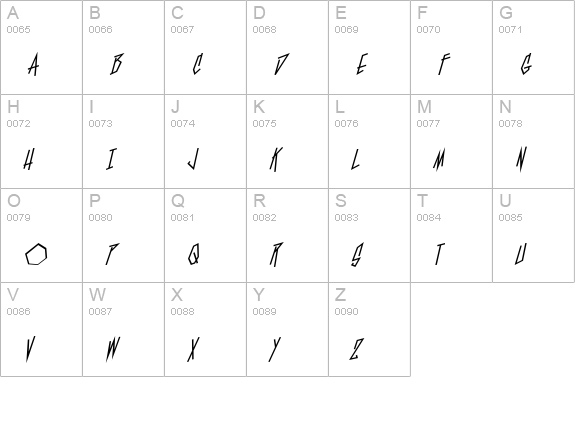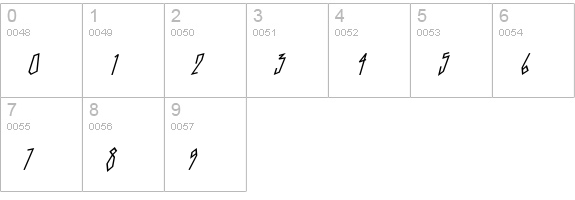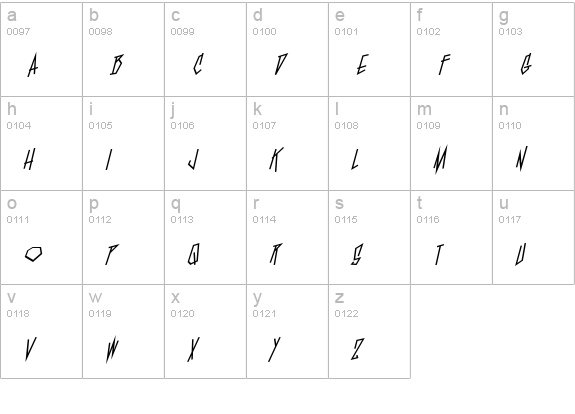
BlamBlam BB Font Details
BlamBlam BB font is a versatile and dynamic typeface that is sure to make a statement in your designs. With its bold and edgy appearance, this font is perfect for adding a touch of personality to any project. Whether you're creating posters, logos, or social media graphics, BlamBlam BB font will grab attention and leave a lasting impression. The best part? BlamBlam BB font is completely free to download at FontsMarket.com. This means you can start using this eye-catching font in your designs right away, without any cost involved. Don't miss out on the opportunity to enhance your creative projects with the striking BlamBlam BB font – download it today and let your designs stand out from the crowd.